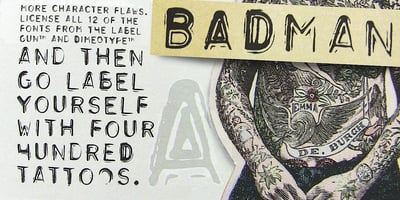
The Label Gun Font is a distinctive and highly recognizable typeface that perfectly mimics the aesthetic of characters printed by a label gun. Its often condensed, sans-serif design with characteristic spacing and slight imperfections makes it an ideal choice for projects aiming for an authentic, utilitarian, or retro-industrial feel. Envision this font adding a quirky touch to product packaging, providing a raw, unpolished look to urban-themed apparel, or giving a unique identity to craft beer labels. It's also incredibly effective for creating DIY-inspired graphics, adding a touch of humor to social media posts, or designing an unconventional brand identity for businesses that value individuality and a handmade aesthetic. If your project calls for something a bit unconventional, authentic, and memorable, the Label Gun Font is an excellent choice.
What makes the Label Gun Font so exciting? Its charm lies in its immediate recognition and nostalgic appeal. This font evokes memories of price tags, shipping labels, and a simpler, more tactile era. It brings an instant sense of authenticity and a "real-world" texture to digital designs. The Label Gun Font is not about sleek perfection; it's about character, slight misalignment, and the charm of mechanical printing. This unique visual identity allows your designs to stand out with an approachable, informal, yet impactful presence. It communicates a message that is direct, unpretentious, and full of personality.
The Label Gun Font family, given its specific stylistic nature, typically focuses on variations that enhance its core "label gun" aesthetic. While extensive weight variations might be less common than in more traditional font families, you might find styles like Label Gun Regular, often a Bold version for added emphasis, and sometimes variations with slightly different spacing or even distressed textures to further mimic physical labels. These subtle differences allow designers to play with the level of "realism" and impact they want to achieve. The inherent character of the Label Gun Font makes it incredibly effective even with limited family members, as its primary purpose is to deliver that specific, charming look. For your projects, remember to utilize the Label Gun Font Free Download for preliminary testing, and ensure proper licensing for all commercial uses.